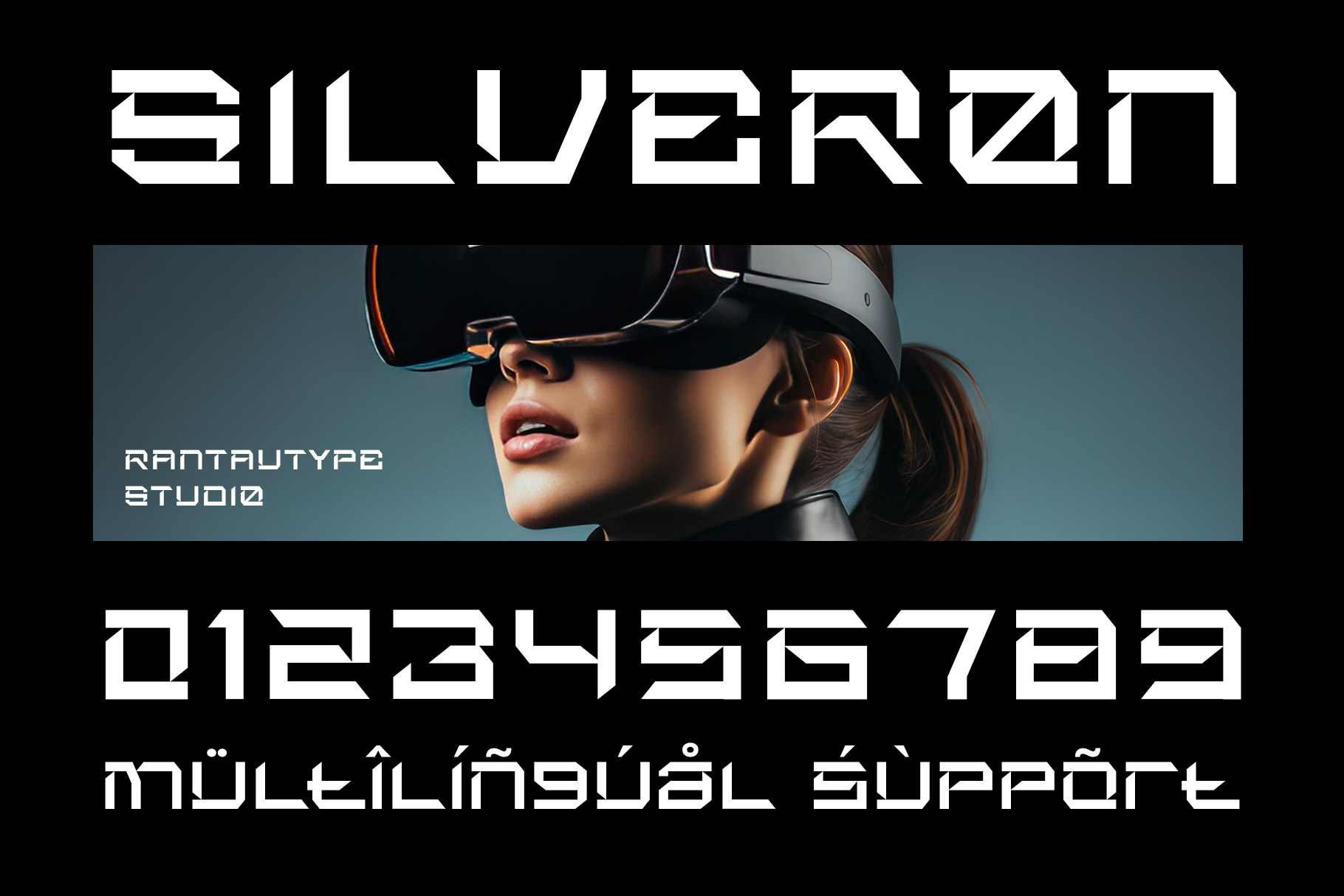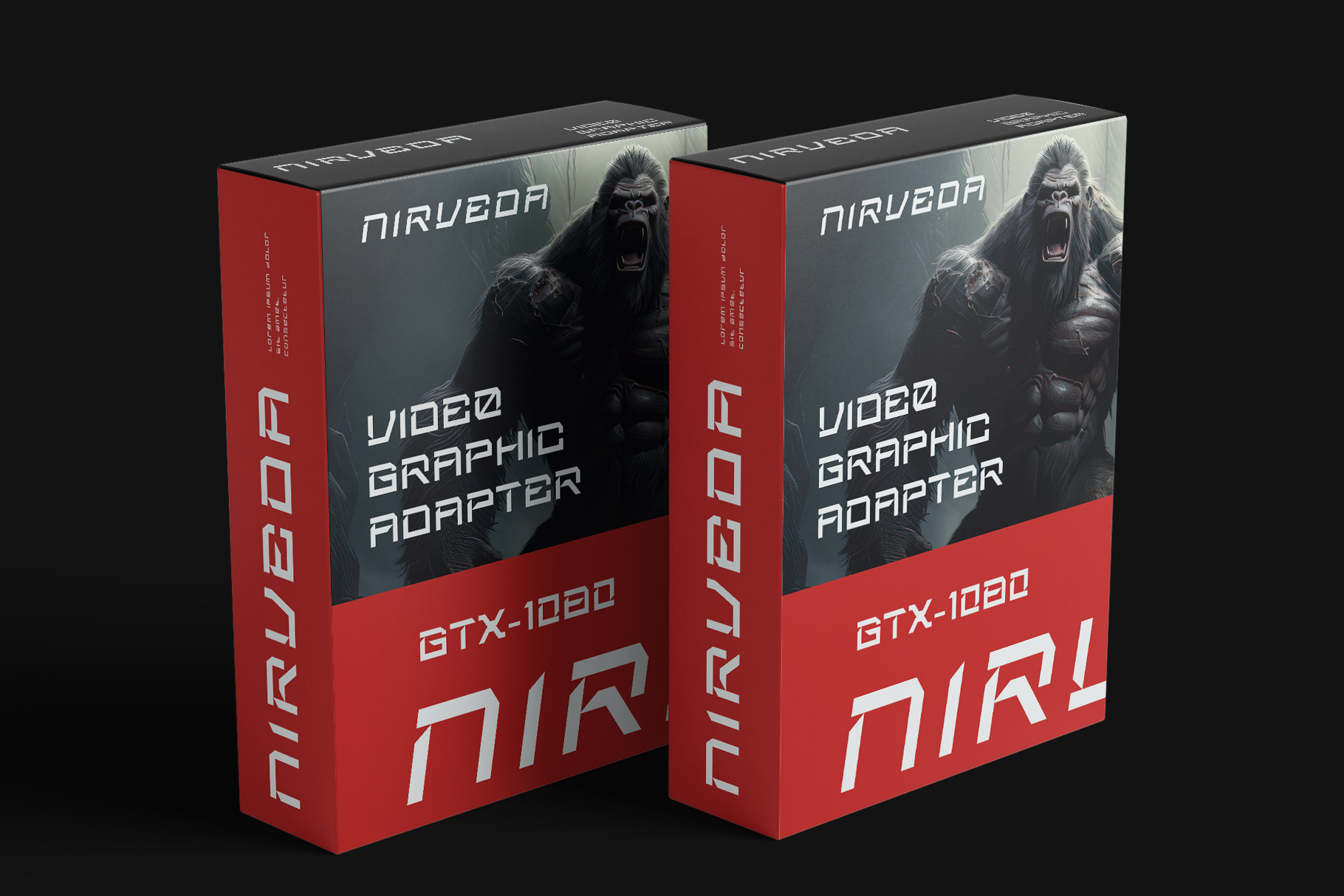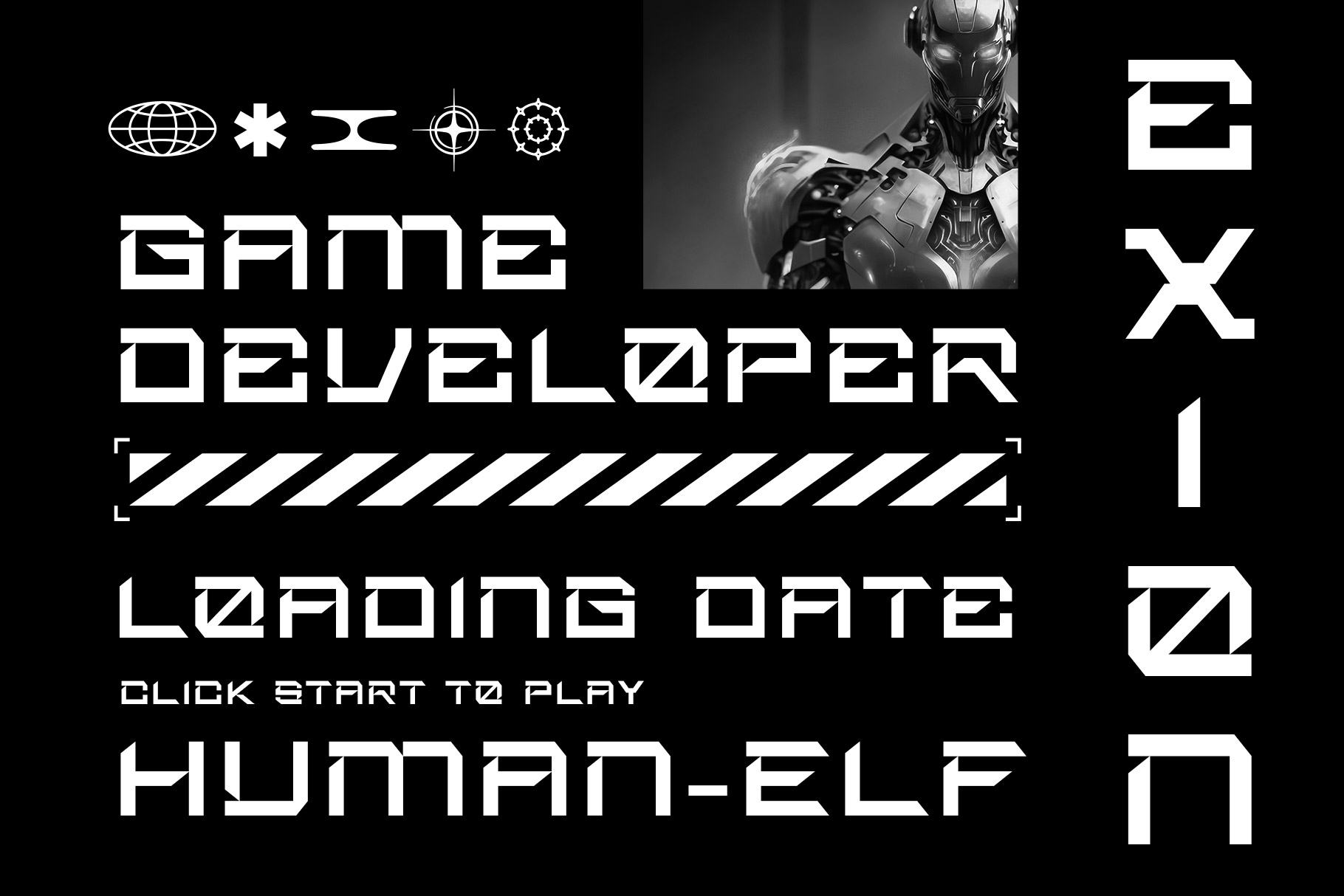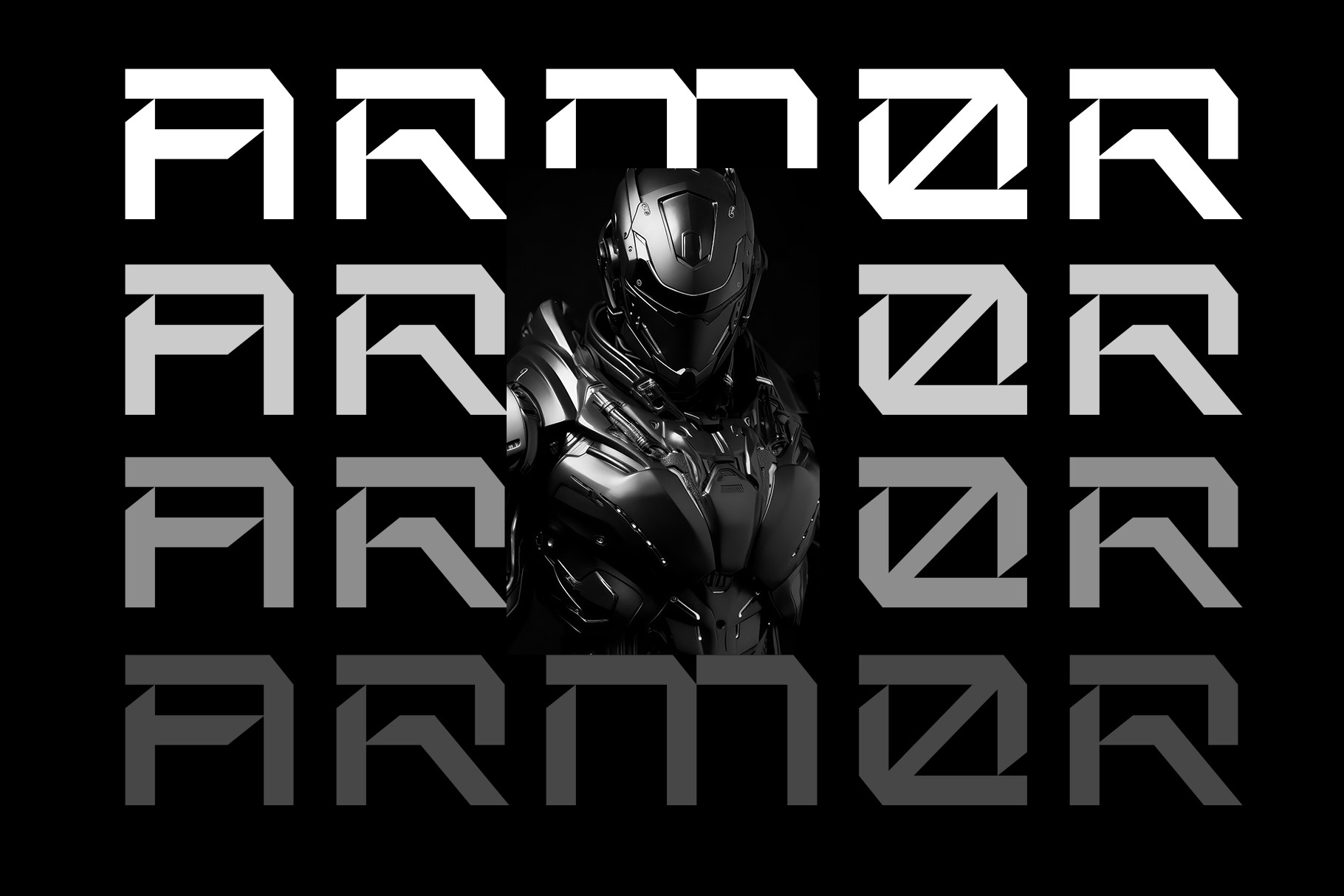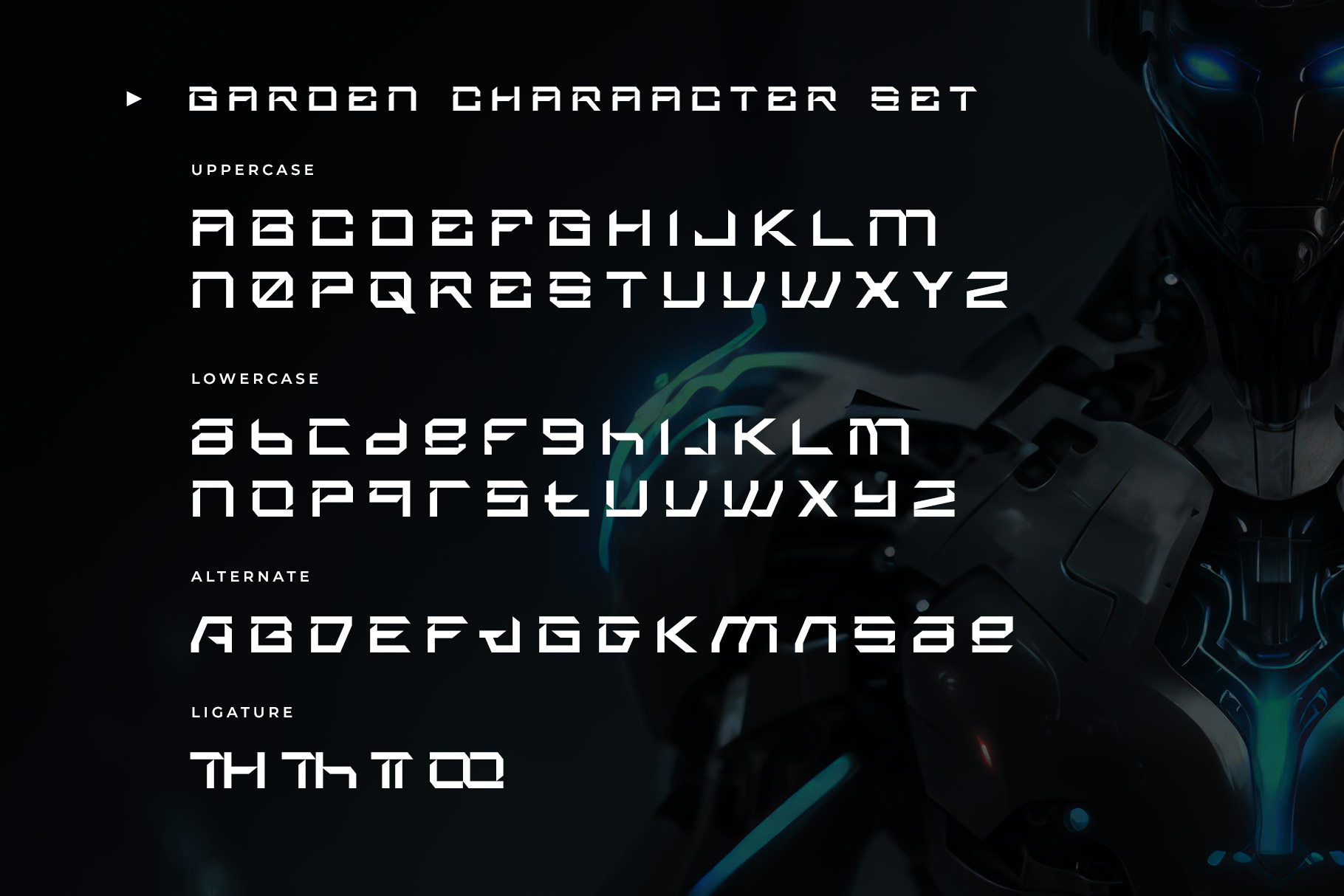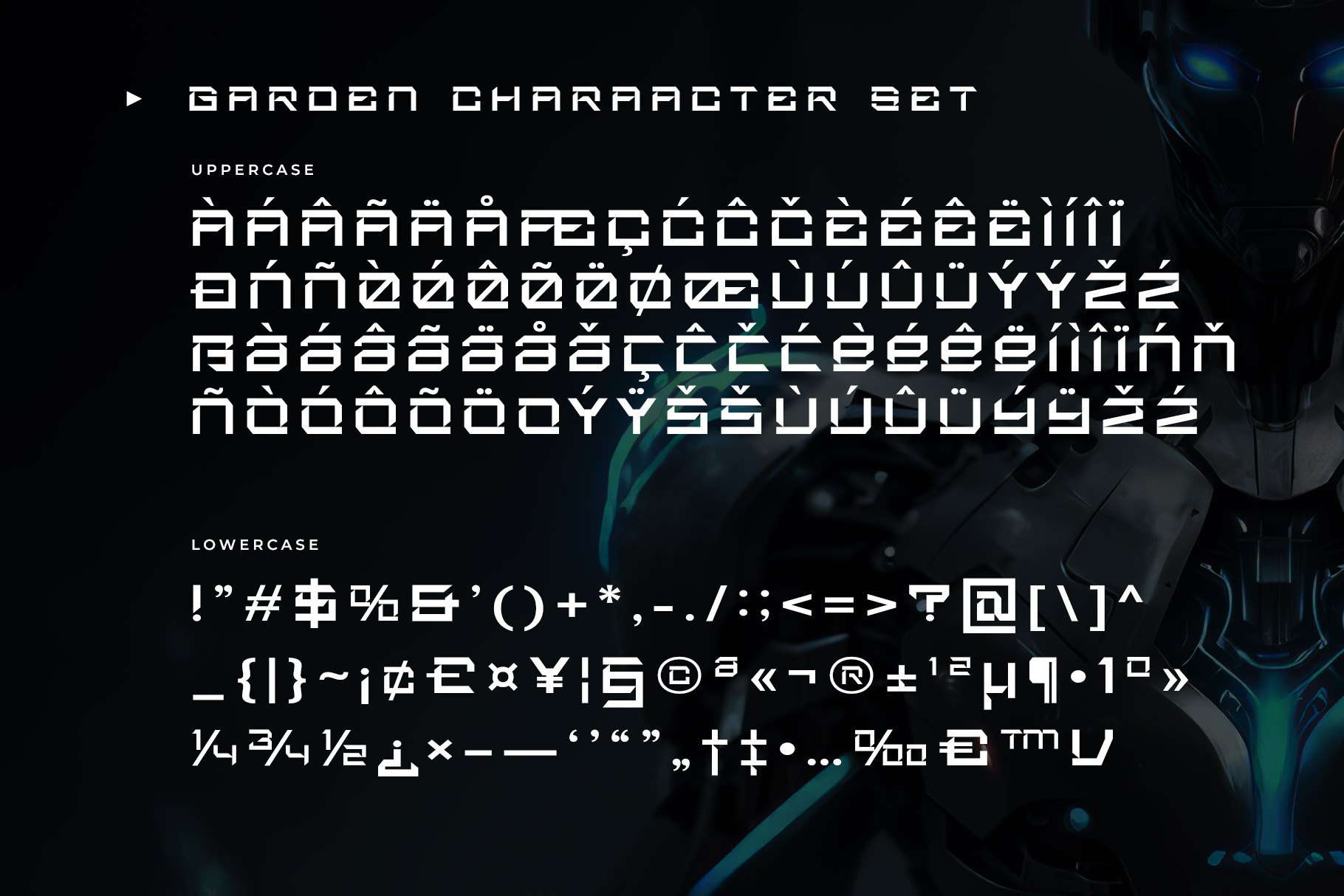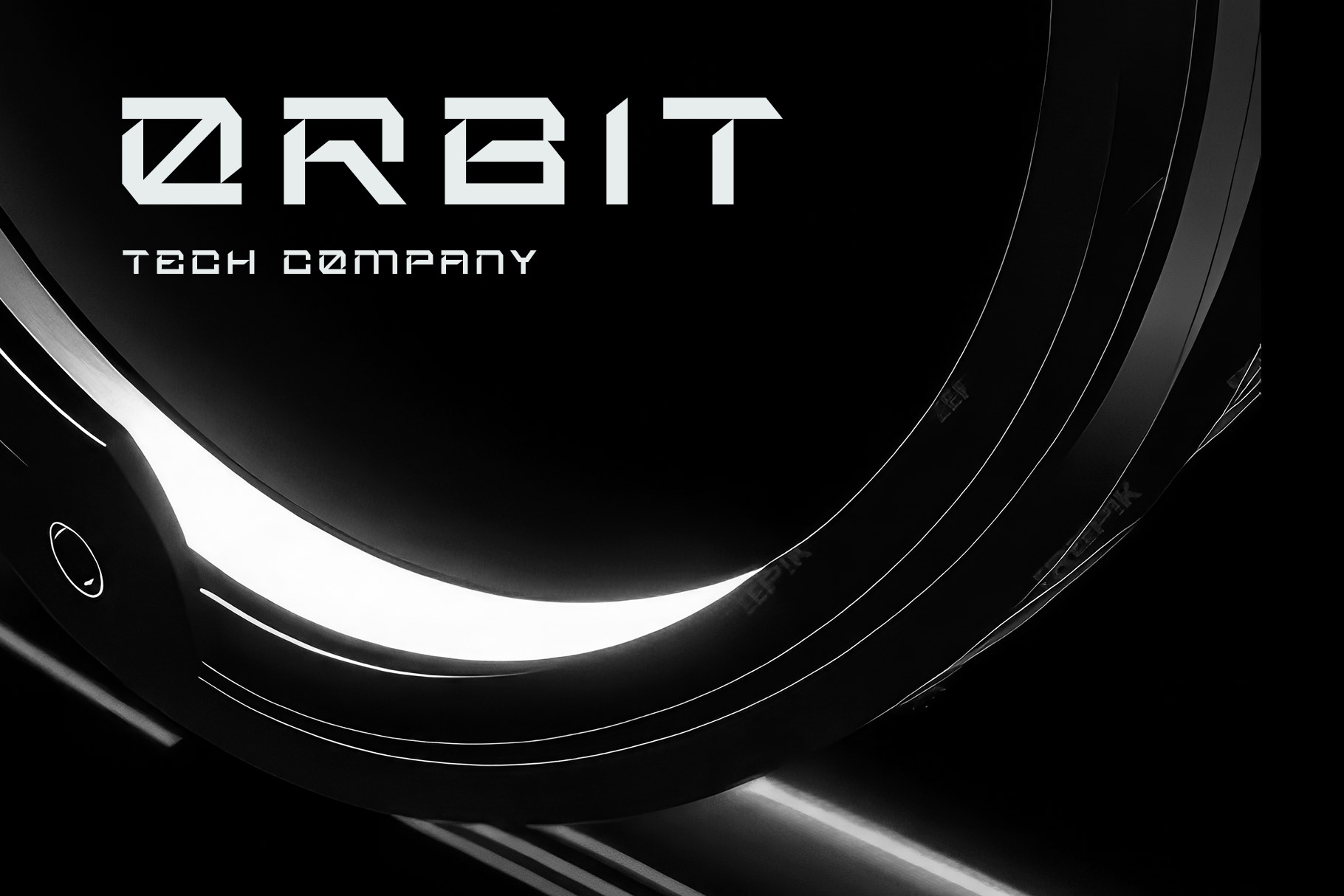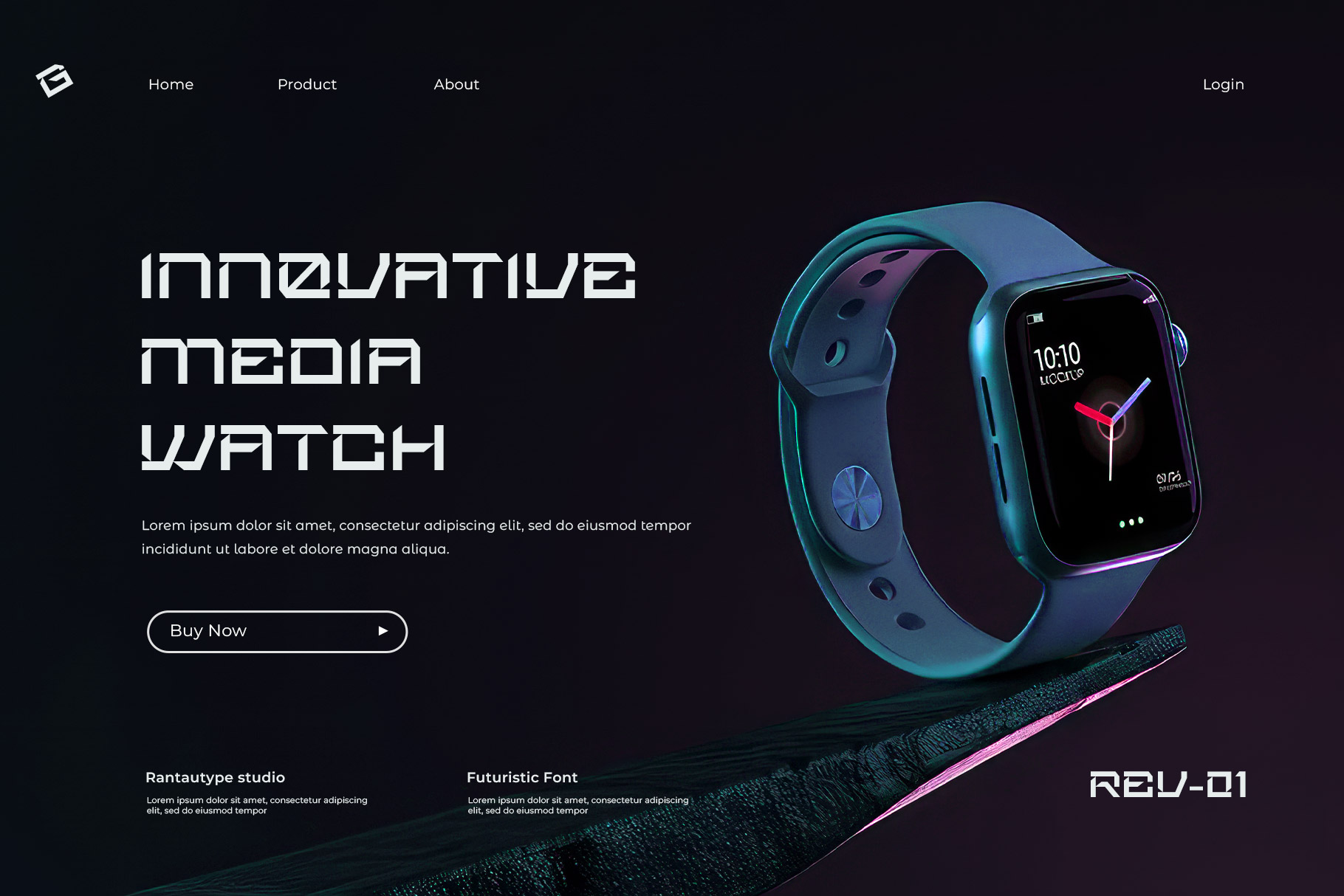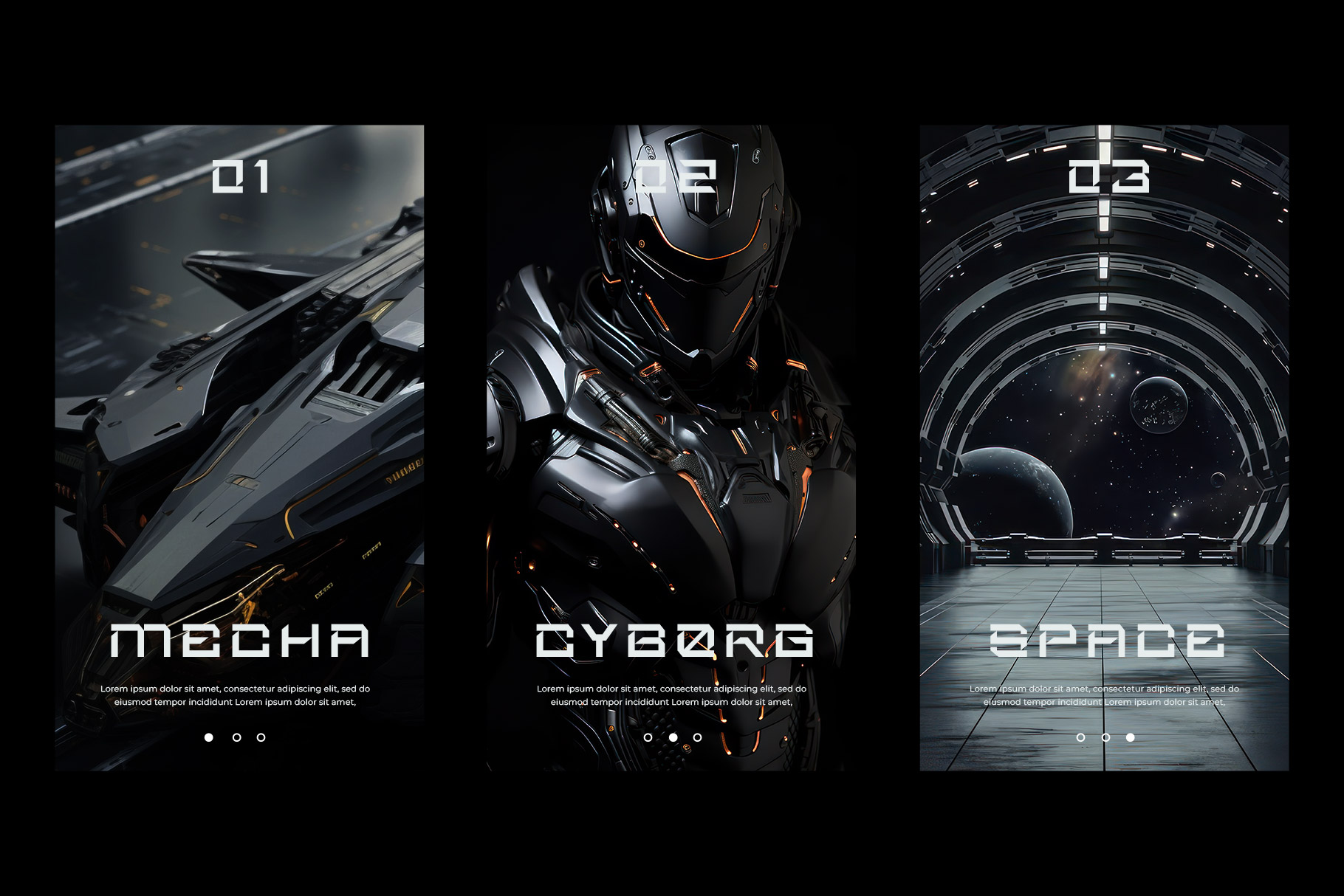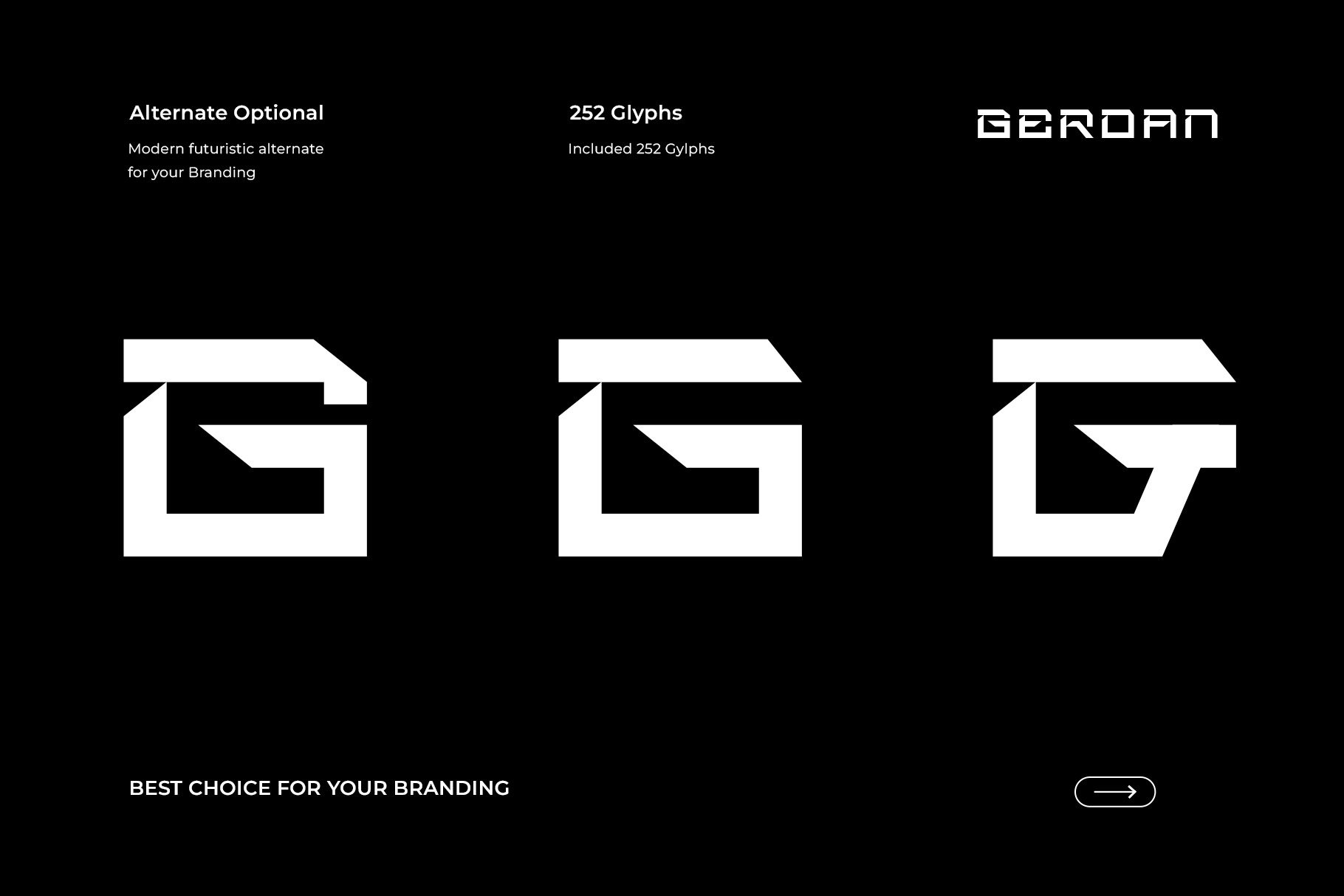
Gerdan Tech Futuristic Font
Gerdan is world of futuristic font with memoriable shape. This font take a futuristic visual design concept with strong shape and
sophisticated world technology era.
Gerdan is a perfectly choice for any creative endeavor, chic, lifestyle design such as logos, advertisements, stationery, branding project, display and magazine, invitation, corporate brand, product design, label, business project and many other project with futuristic touch.